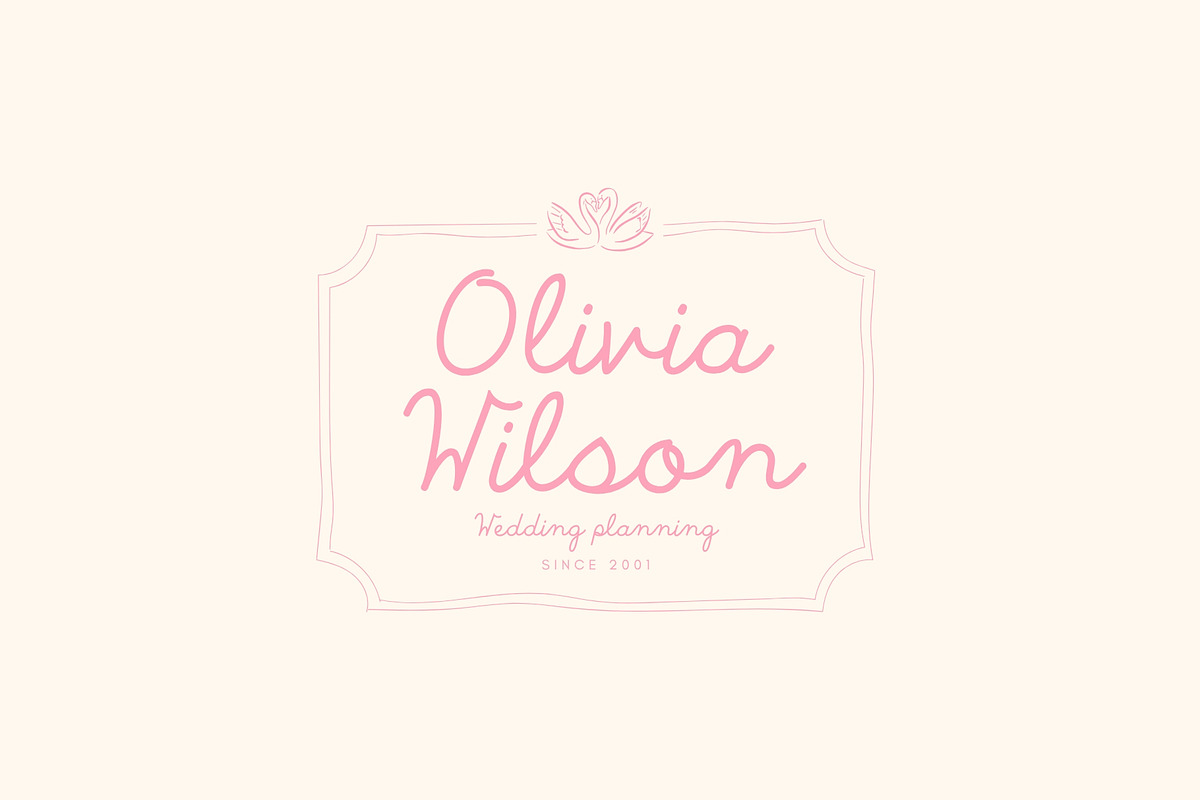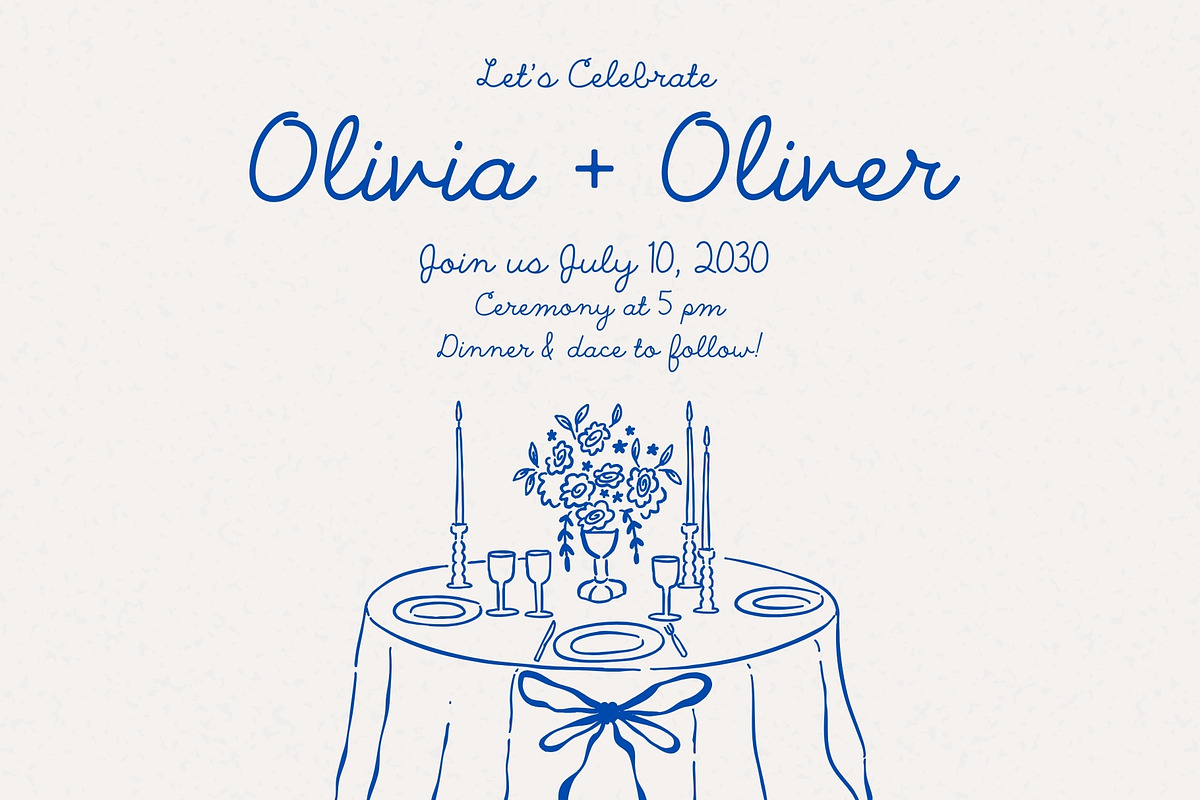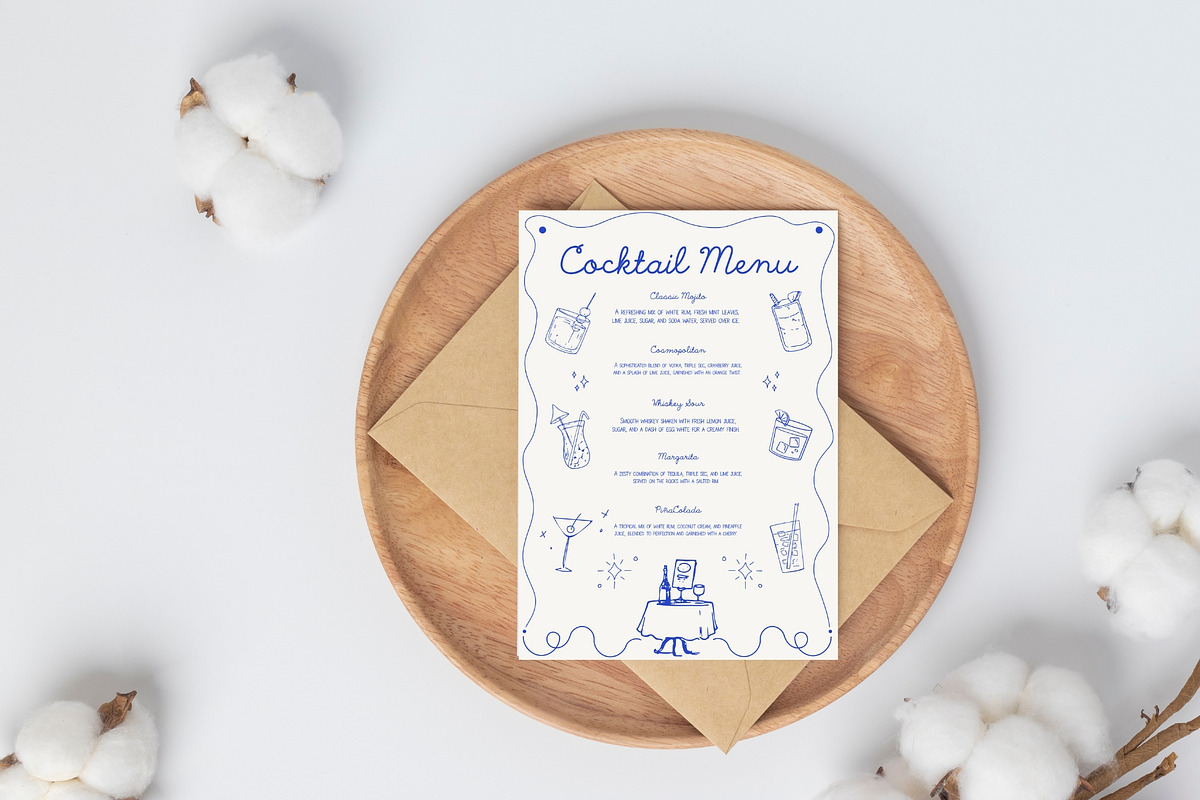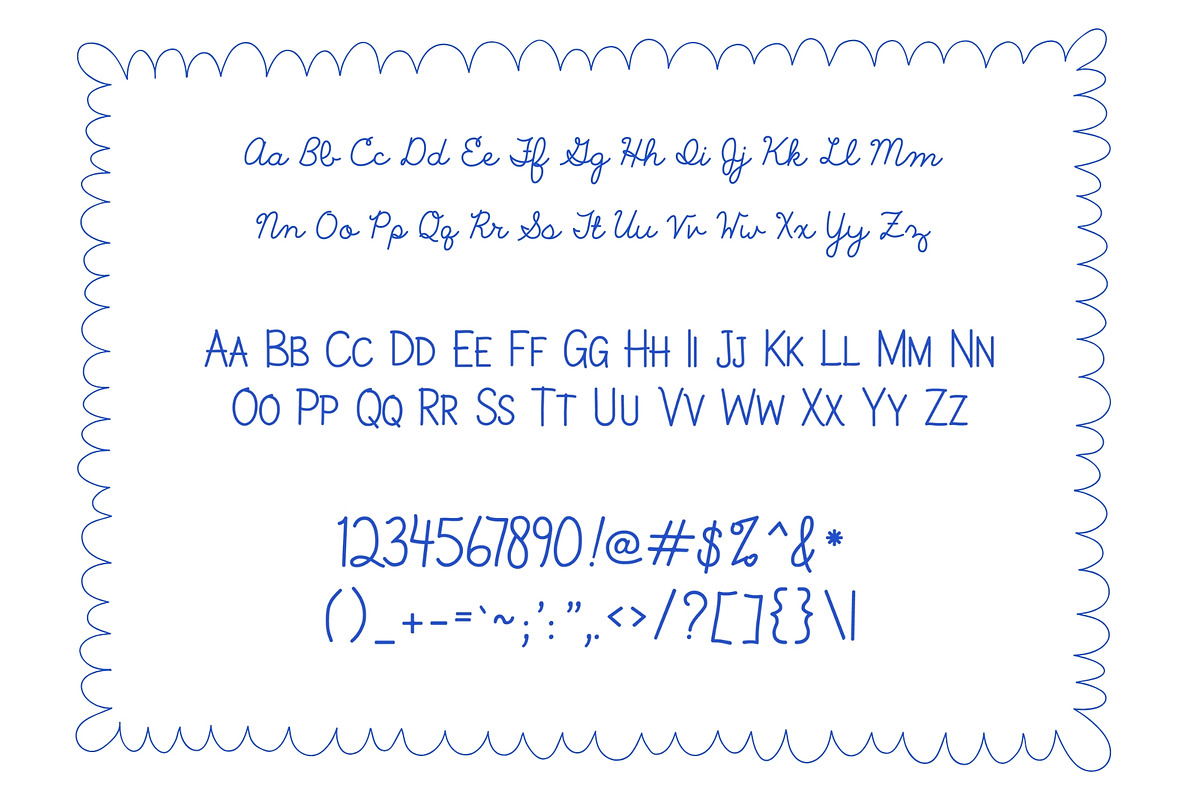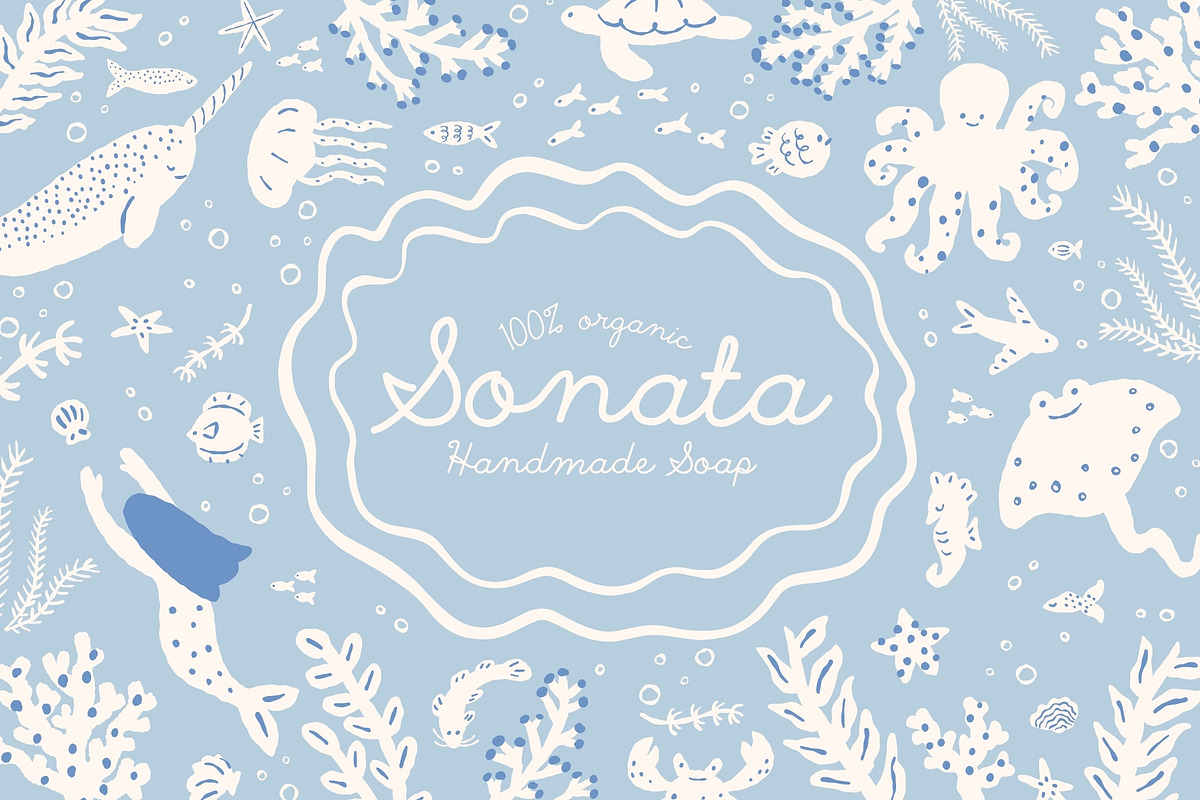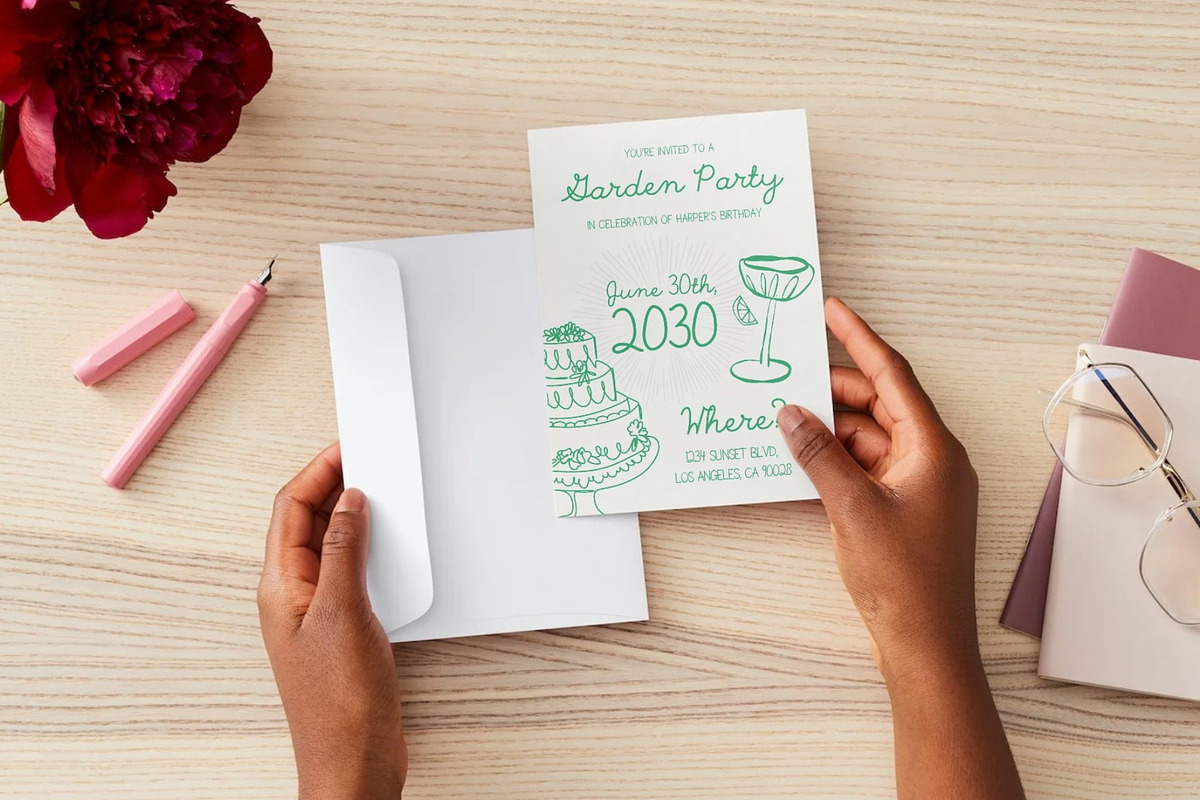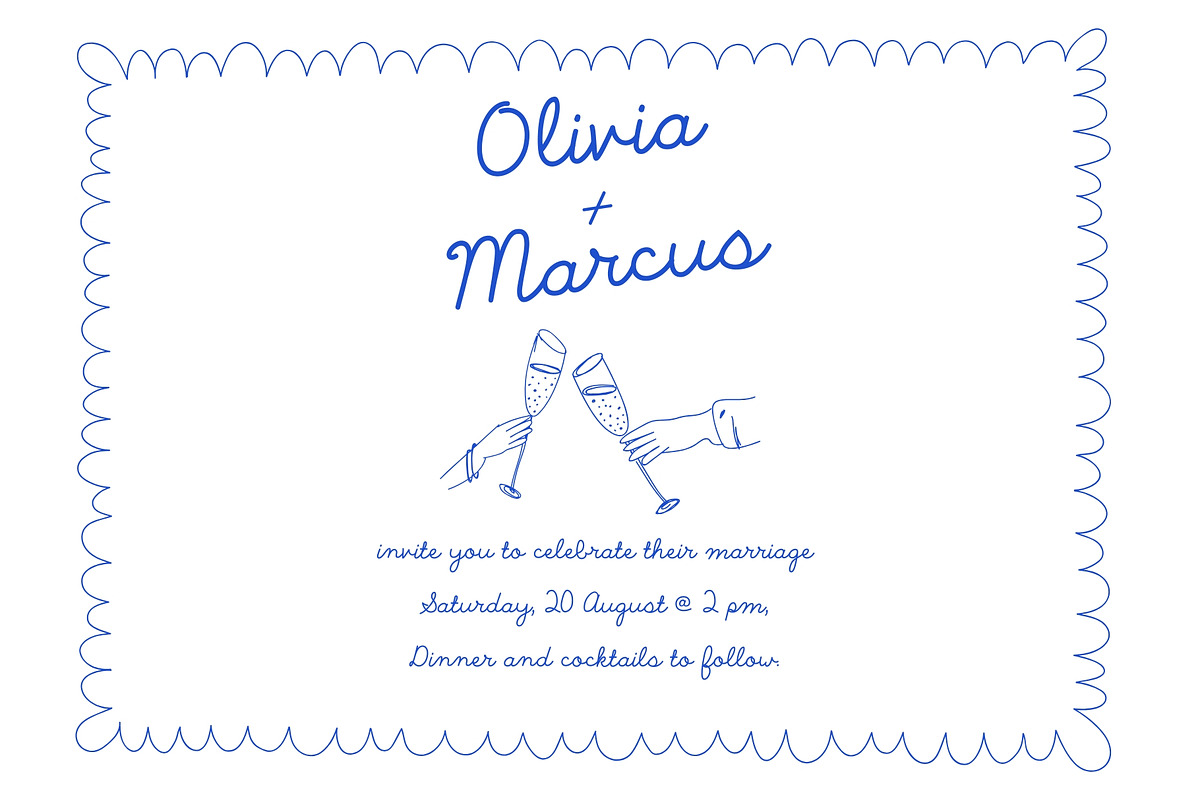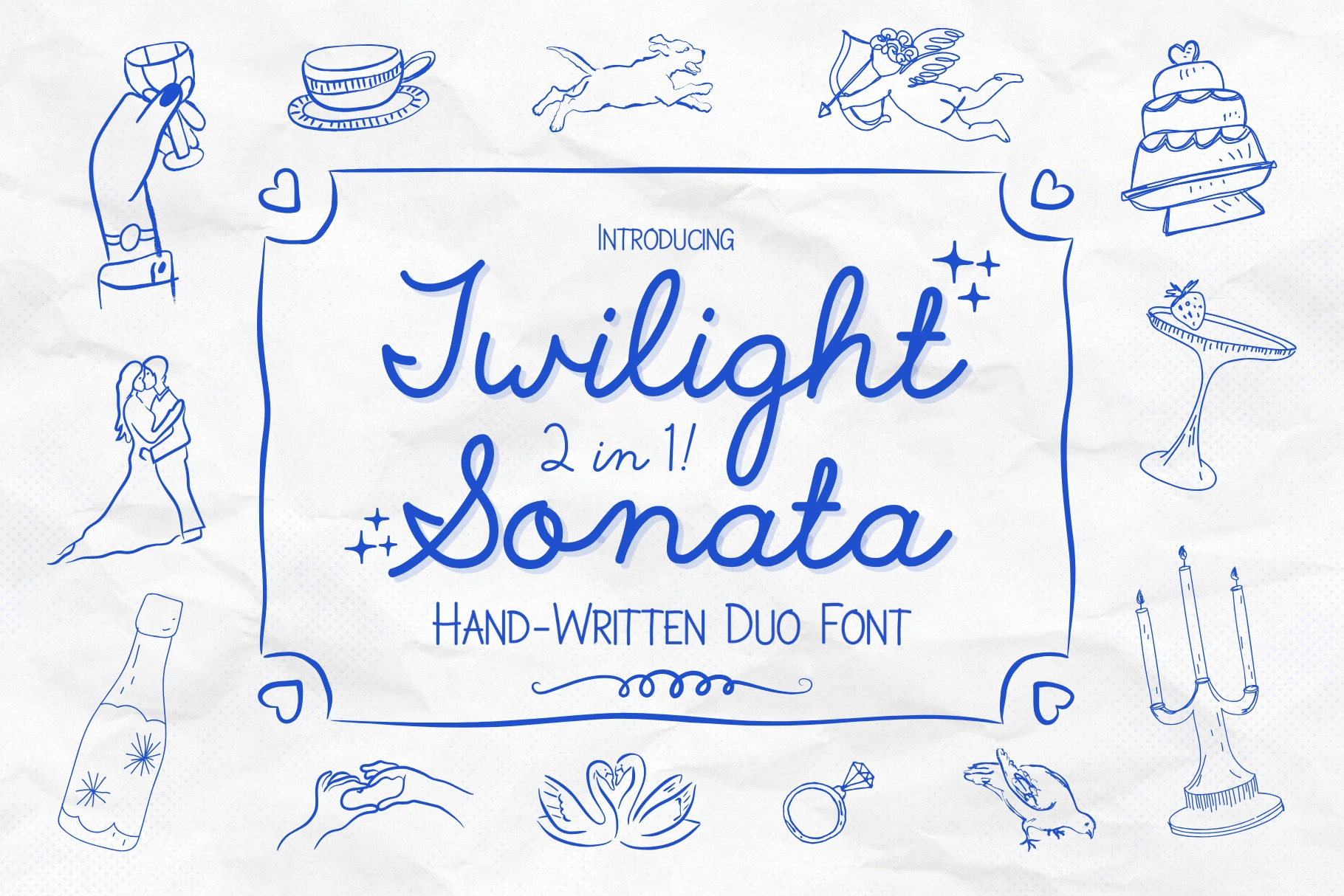
Twilight Sonata - Whimsical Font Duo
Introducing Twilight Sonata – A Whimsical Font Duo Made for Dreamers
Step into a world where elegance meets enchantment. Twilight Sonata is a magical handwritten font duo that pairs a charming script with a playful sans-serif, crafted to bring your most delightful designs to life.
Whether you're designing a wedding invitation under the stars, a cozy café menu, or a brand with heart and personality, Twilight Sonata lets you mix and match its two styles effortlessly. The script flows like a melody, while the sans brings balance with a sweet, modern touch.
From fairytale-inspired stationery to Instagram quotes that sparkle, this font duo is as adorable as it is versatile. It’s your go-to choice for creating designs that feel heartfelt, unique, and absolutely unforgettable.
- Wedding Invitations
- Branding & Logos
- Menus & Greeting Cards
- Social Media Graphics
- Whimsical Packaging
Let Twilight Sonata sweep you off your feet and add a sprinkle of magic to every project.